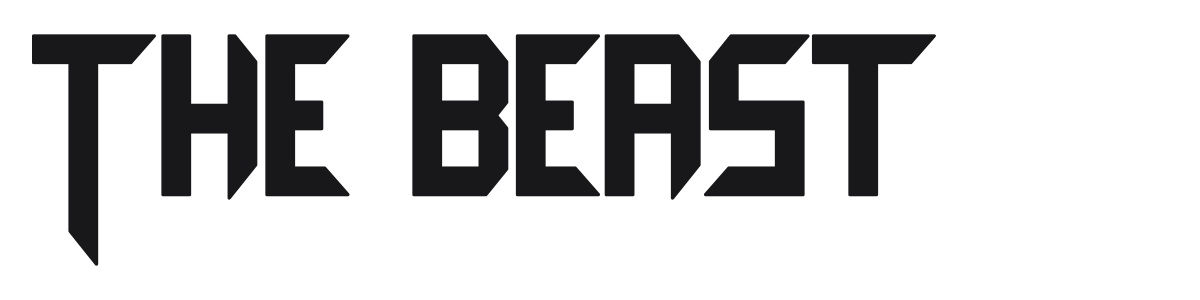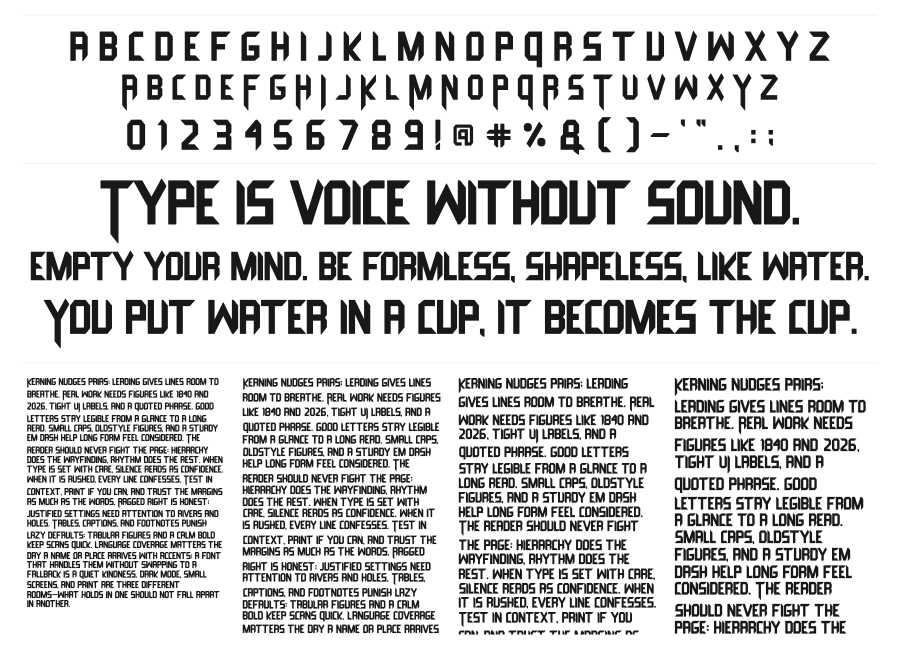
The Beast
The Beast is a heavy condensed display font built from bold geometric blocks with sharp diagonal cuts slicing through stems and joints. The angular incisions give each character a fractured, almost weapon-like quality that reads as raw and confrontational. Strong at large sizes for posters, album art, or anywhere a design needs teeth.